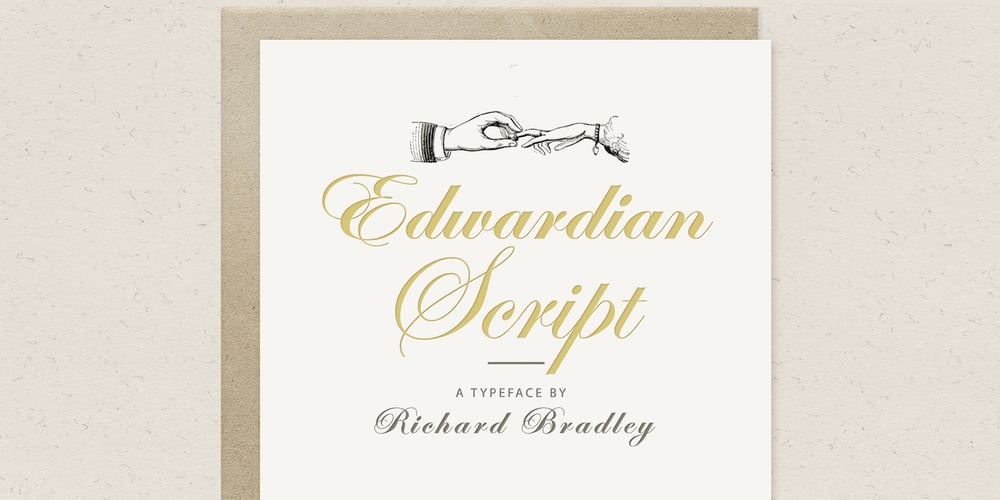
ITC Edwardian Script
ITC Edwardian Script font
ITC Edwardian Script Font Family was designed by Edward Benguiat and published by ITC. ITC Edwardian Script contains 2 styles and family package options. In 1994, Edward Benguiat designed ITC Edwardian Script, an emotional, lyrical, even passionate calligraphic typeface. Its appearance was influenced by the look of writing with a steel pointed pen, an instrument which can be pushed as well as pulled, and which produces stroke contrast when pressure upon it is varied. The delicate, sophisticated letterforms of ITC Edwardian Script font were drawn and redrawn until the connective elements of the letters were perfected to create the look of true handwriting.